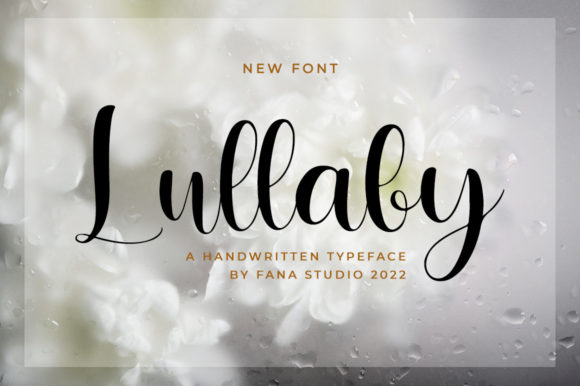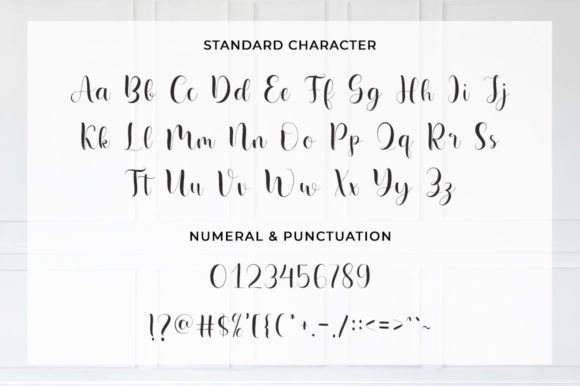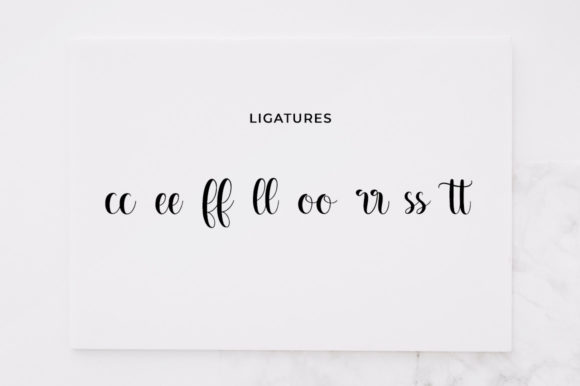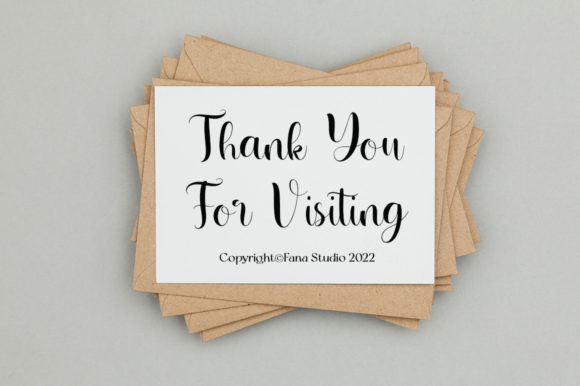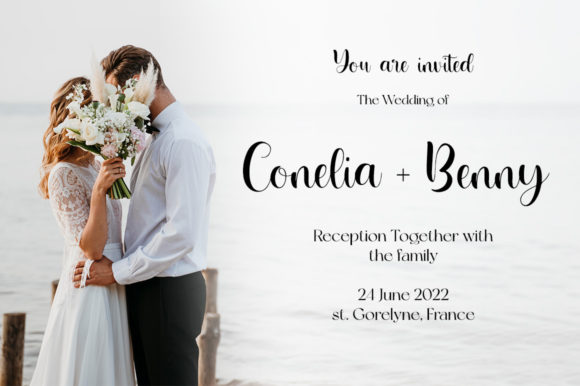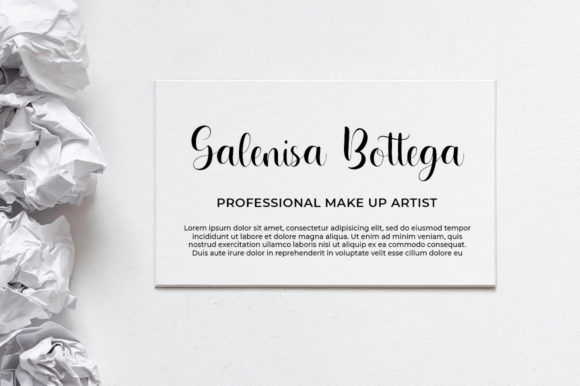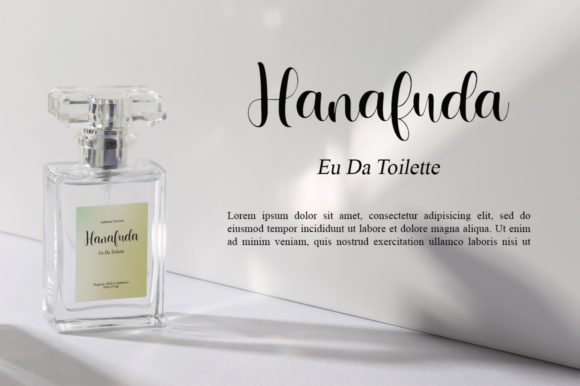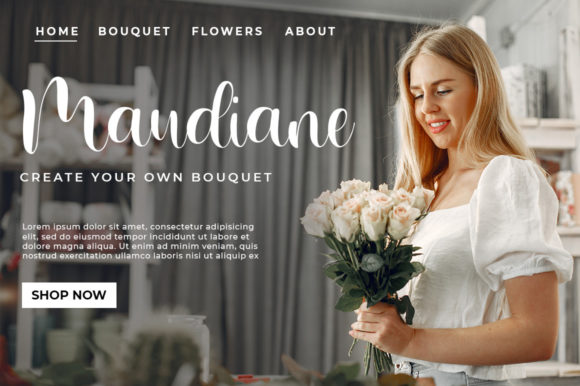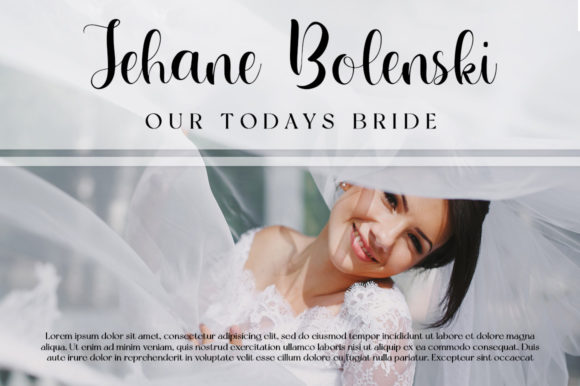
Lullaby Font
About Lullaby Font
Lullaby is a superb handwritten font that will make your work stand out through its elegant and curvy lines. It is perfect for product packaging, branding project, magazine covers, social media, wedding, or just used to express words above the background.